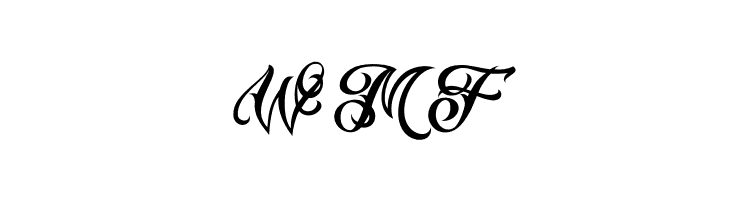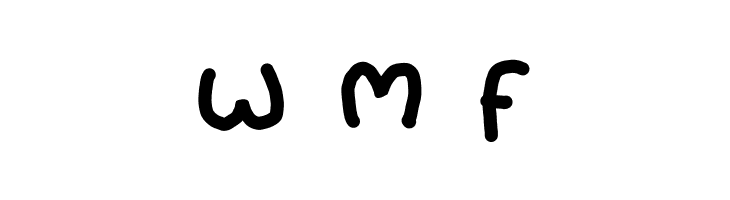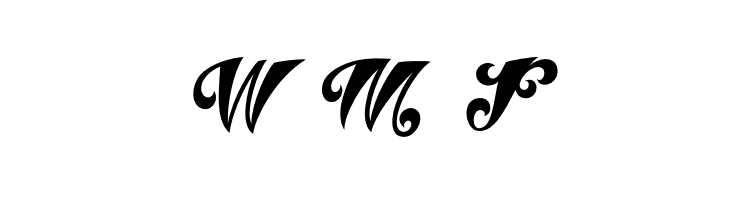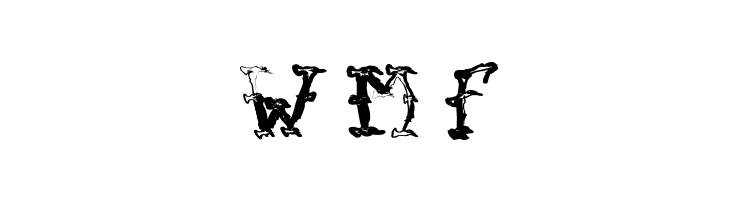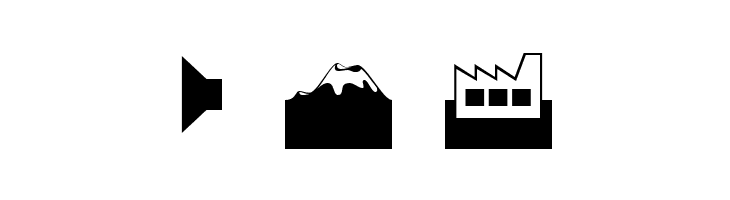
A bold, chaotic, and decorative font with an ink-splatter aesthetic.
An ornate, tattoo-inspired script font with decorative flourishes.
A rugged, distressed font with jagged edges and irregular strokes.
An ornate and bold script font with intricate swirls and decorative flair.
A decorative blackletter font with intricate, sharp edges and a medieval aesthetic.
A bold, pictographic dingbat set with diverse icons for signage and infographics.
A playful, handwritten font with tall, narrow letters and a whimsical style.
A playful, hand-drawn font with rounded, whimsical characters.